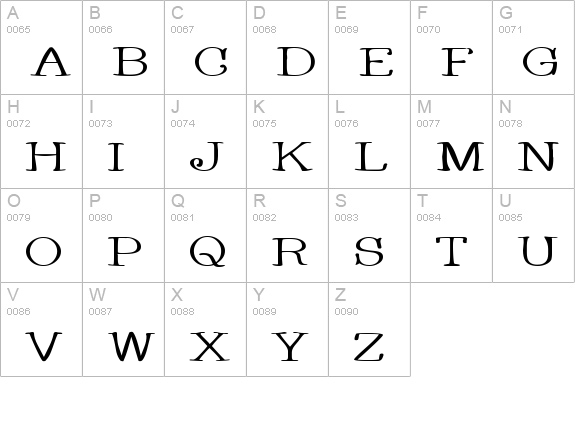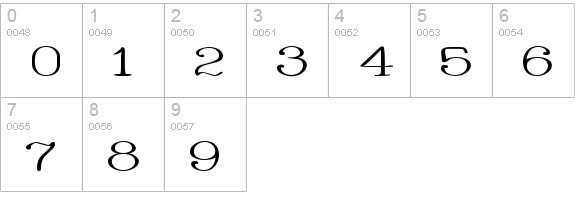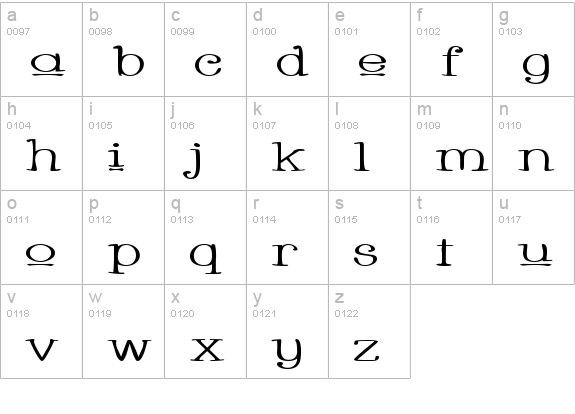
Whackadoo Upper Wide Font Details
Whackadoo Upper Wide is a distinctive, extended-width variant in the Whackadoo typeface family \xE2\x80\x94 well suited to design and typography projects.
Introducing the captivating Whackadoo Upper Wide font, a typeface that is sure to leave a lasting impression with its unique and playful design. This font exudes a sense of whimsy and fun, making it perfect for projects that require a touch of creativity and imagination. With its wide and bold letterforms, Whackadoo Upper Wide commands attention and adds a bold statement to any design. Whether you're working on a logo, poster, or social media graphic, this font will make your text pop and stand out from the crowd. But what truly sets Whackadoo Upper Wide apart is its versatility. This font can be used in a variety of contexts, from children's books to party invitations, from quirky brand identities to eye-catching headlines. Its versatility makes it a must-have in any designer's toolkit. And the best part? Whackadoo Upper Wide is freely available to download at FontsMarket.com. That's right, you can add this incredible font to your collection without spending a dime. So why wait? Go ahead and give your designs the boost they deserve with Whackadoo Upper Wide. Download it now and set your creativity free!